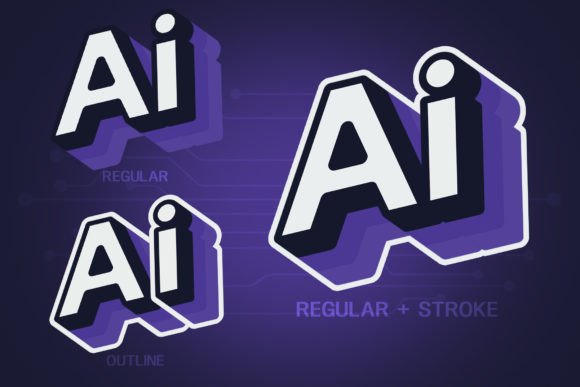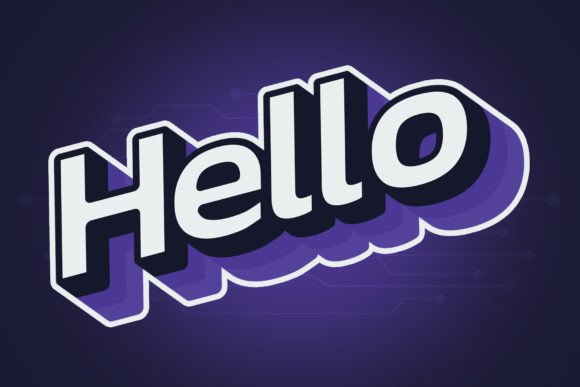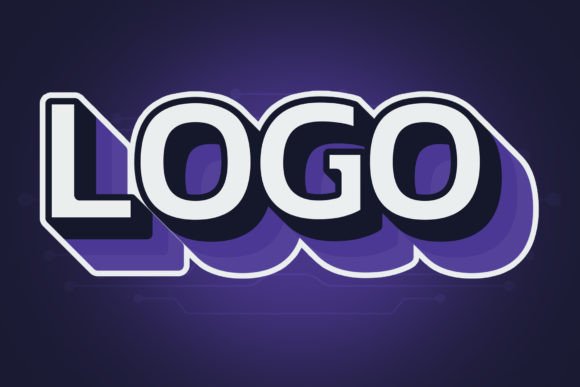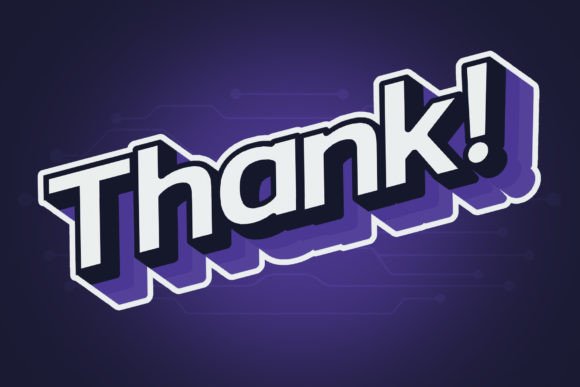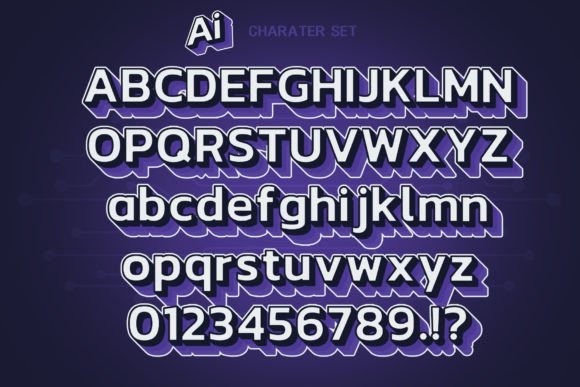
Introducing Ai Font: The Dazzling and Thick Color Font for Creative Designs
Are you tired of using the same old fonts for your designs? Look no further! Ai Font is here to revolutionize your creative projects with its vintage and eye-catching look. This stunning font is perfect for designers, crafters, and anyone looking to add a touch of personality to their work. In this article, we’ll dive into the world of Ai Font and explore its features, uses, and benefits.
What is Ai Font?
Ai Font is a dazzling and thick color font that boasts a unique vintage aesthetic. Its bold and vibrant colors are sure to grab attention and make your designs stand out. Whether you’re creating logos, branding materials, invitations, social media posts, or more, Ai Font is the perfect choice. Its versatility and flexibility make it an excellent addition to any designer’s toolkit.
Key Features of Ai Font
- Vintage Look: Ai Font’s retro-inspired design gives it a distinctive and nostalgic feel that’s perfect for creating unique and eye-catching designs.
- Thick and Bold: The font’s thick and bold lines make it highly legible and perfect for use in a variety of design applications.
- Colorful: Ai Font comes in a range of vibrant colors, allowing you to add a pop of personality to your designs.
- Versatile: From logos and branding to invitations and social media posts, Ai Font can be used in a wide range of design projects.
Uses of Ai Font
Ai Font is an incredibly versatile font that can be used in a variety of design applications. Here are some ideas to get you started:
- Logos and Branding: Create a lasting impression with Ai Font’s bold and colorful design. Perfect for logos, business cards, and other branding materials.
- Invitations and Events: Add a touch of elegance and sophistication to your invitations, wedding cards, and other event materials.
- Social Media Posts: Make your social media posts stand out with Ai Font’s vibrant colors and bold design.
- Signage and Displays: Use Ai Font to create eye-catching signage and displays that grab attention.
Benefits of Using Ai Font
So why choose Ai Font for your design projects? Here are just a few benefits:
- Unique and Eye-Catching: Ai Font’s vintage and colorful design makes it a standout from more traditional fonts.
- Time-Saving: With Ai Font, you can create professional-looking designs in no time. Its bold and colorful design eliminates the need for extensive editing and formatting.
- Flexible: Ai Font can be used in a wide range of design applications, making it an excellent addition to any designer’s toolkit.
Tips for Using Ai Font
Here are a few tips for getting the most out of Ai Font:
- Experiment with Colors: Ai Font comes in a range of vibrant colors. Experiment with different colors to find the perfect combination for your design.
- Mix and Match: Combine Ai Font with other fonts and design elements to create a unique and eye-catching design.
- Keep it Simple: Don’t be afraid to keep things simple. Ai Font’s bold and colorful design can make a big impact even on its own.
Ai Font is a game-changer for designers and crafters looking to add a touch of personality to their work. Its vintage and eye-catching look, combined with its versatility and flexibility, make it an excellent addition to any designer’s toolkit. Whether you’re creating logos, branding materials, invitations, social media posts, or more, Ai Font is the perfect choice. So why wait? Give Ai Font a try today and take your designs to the next level!